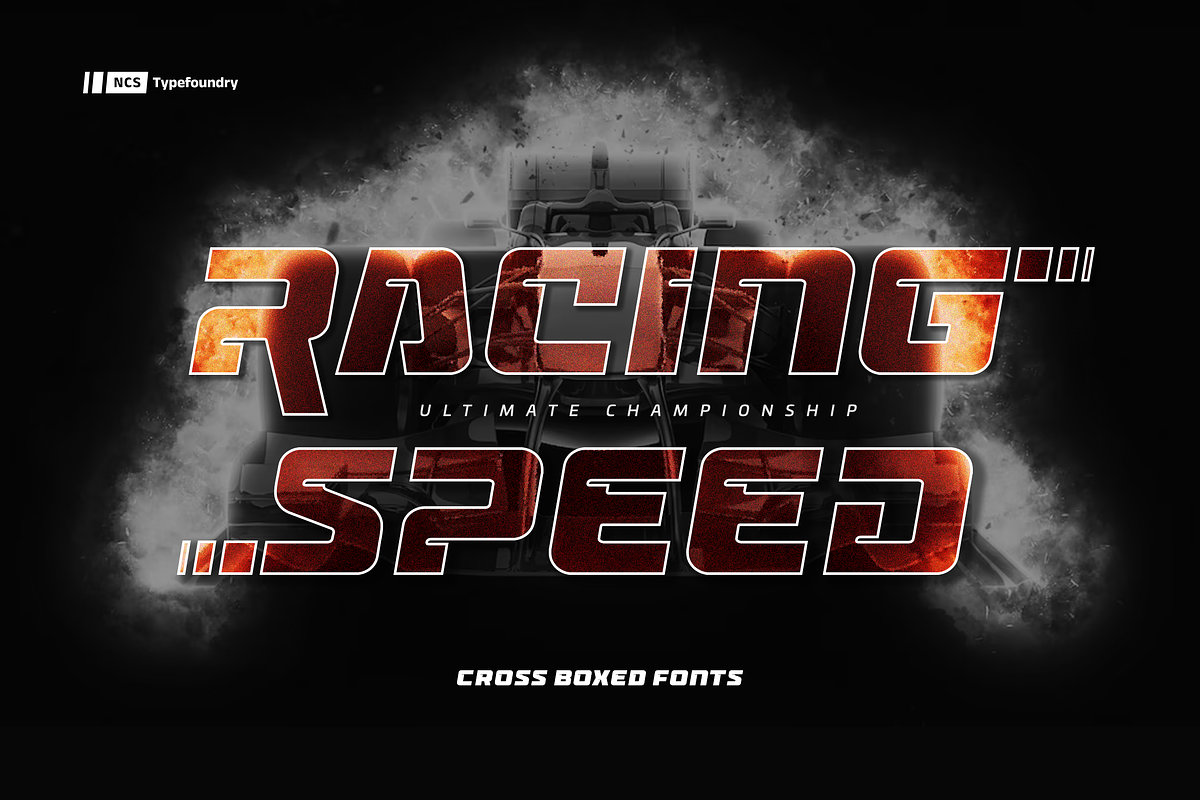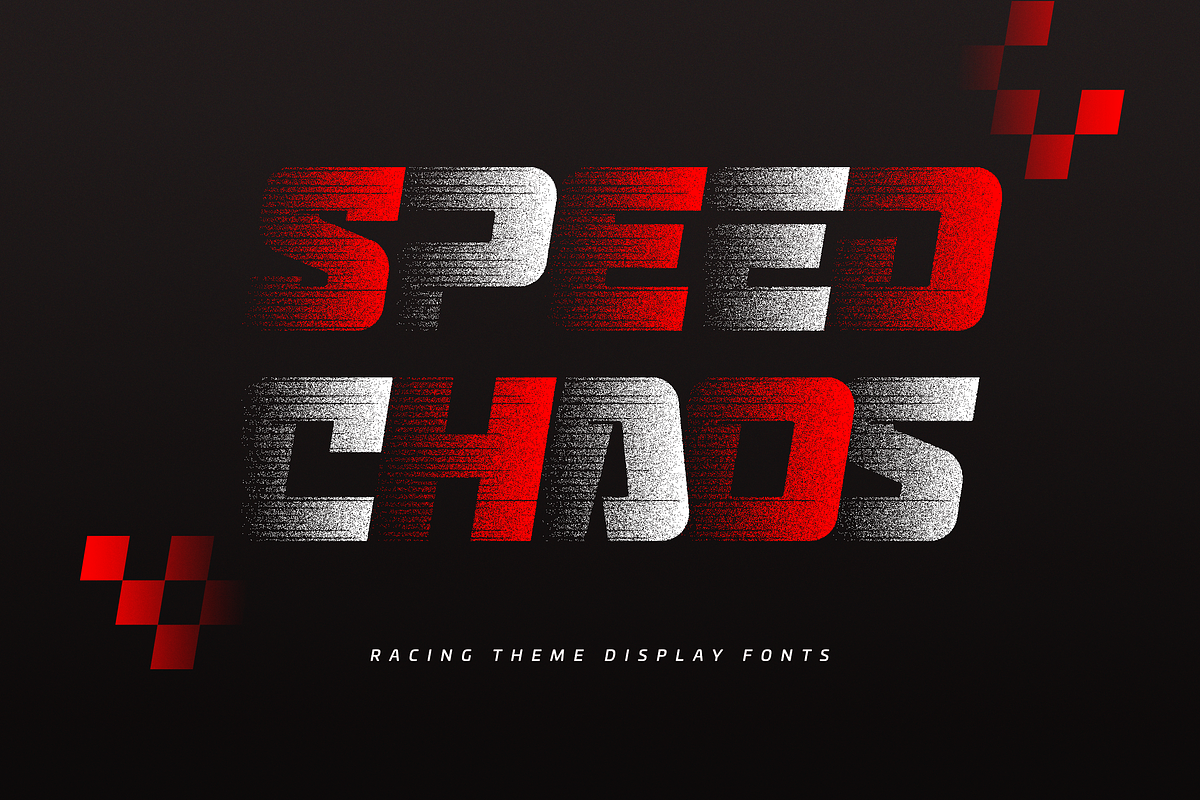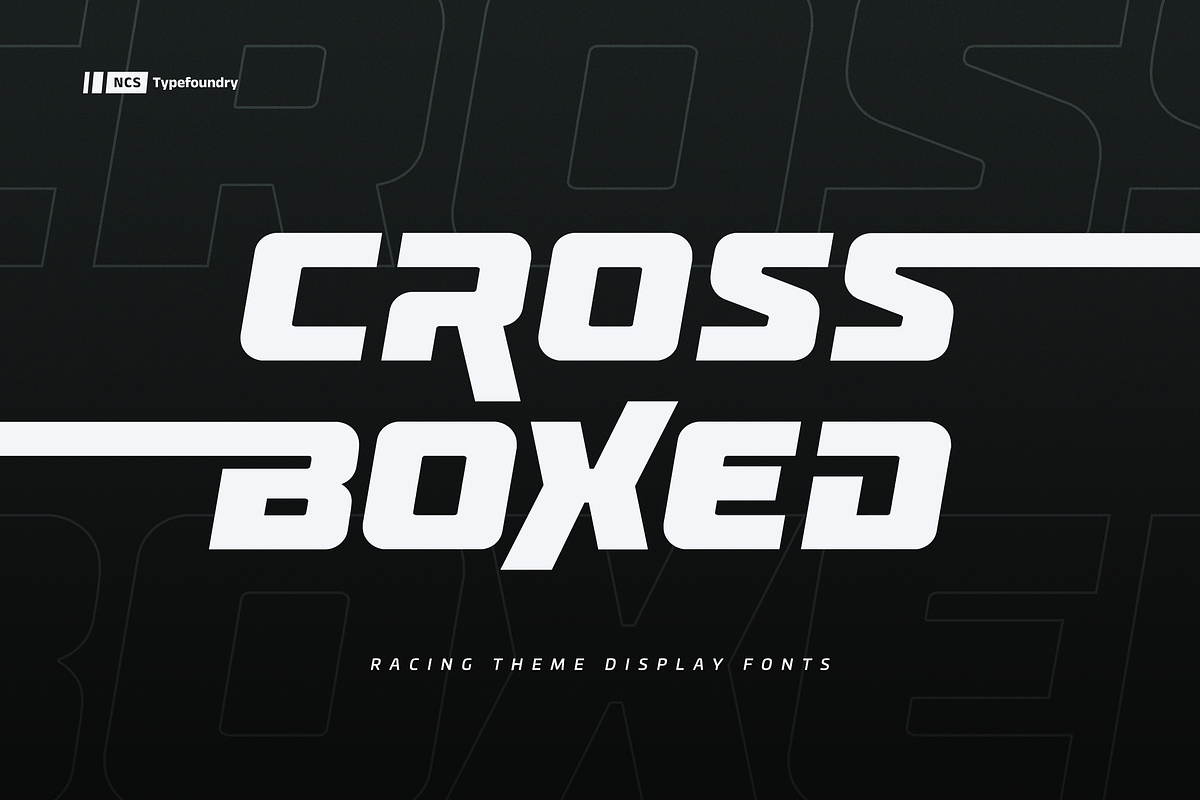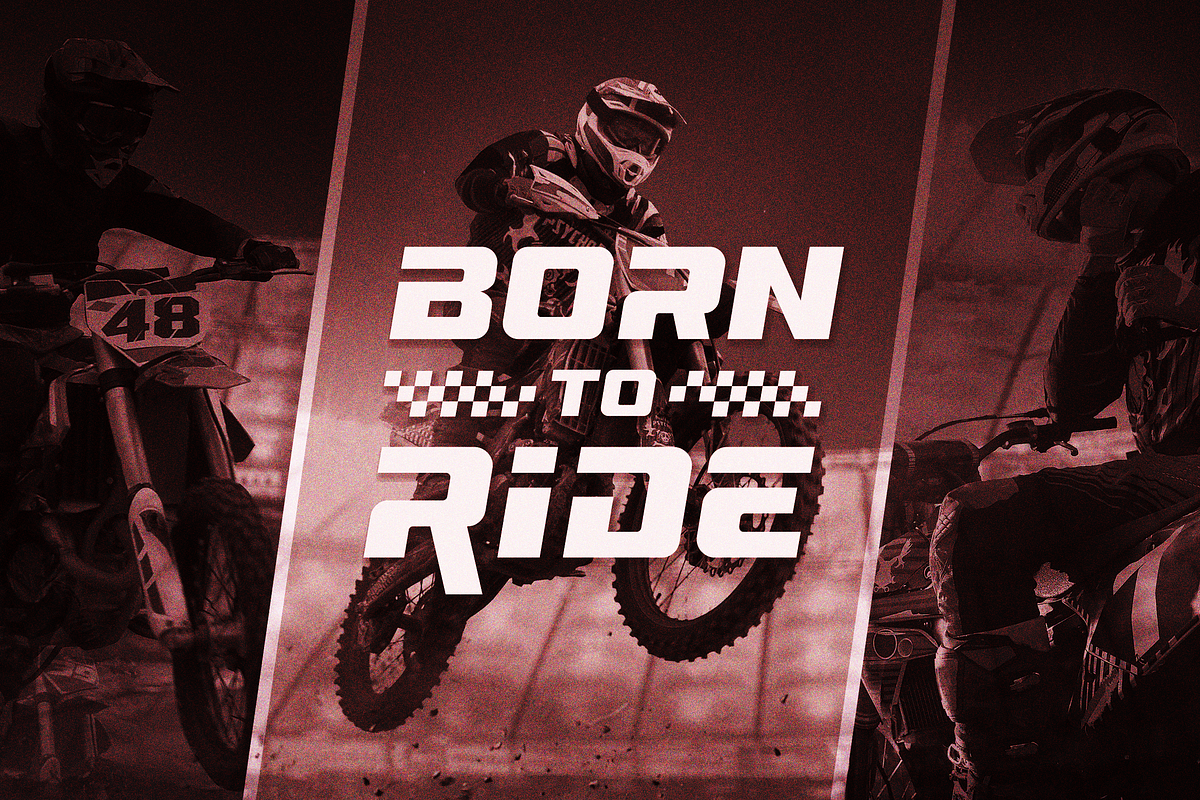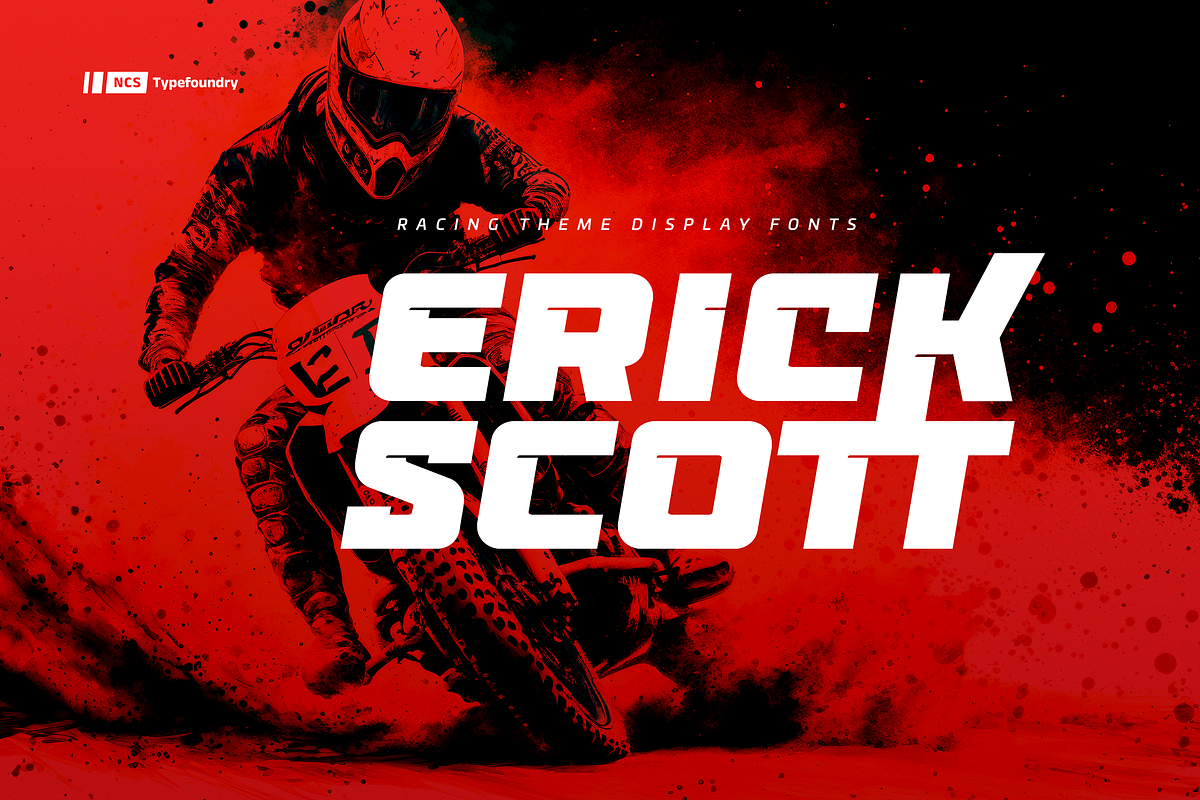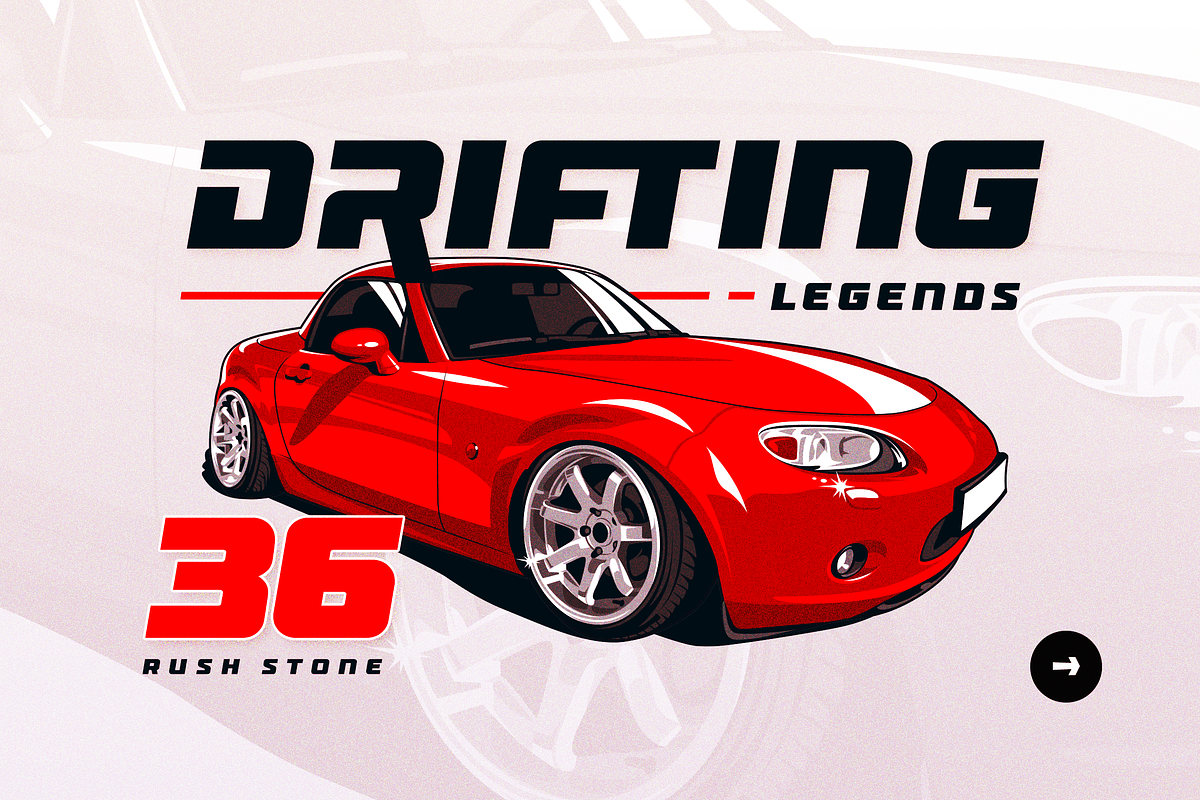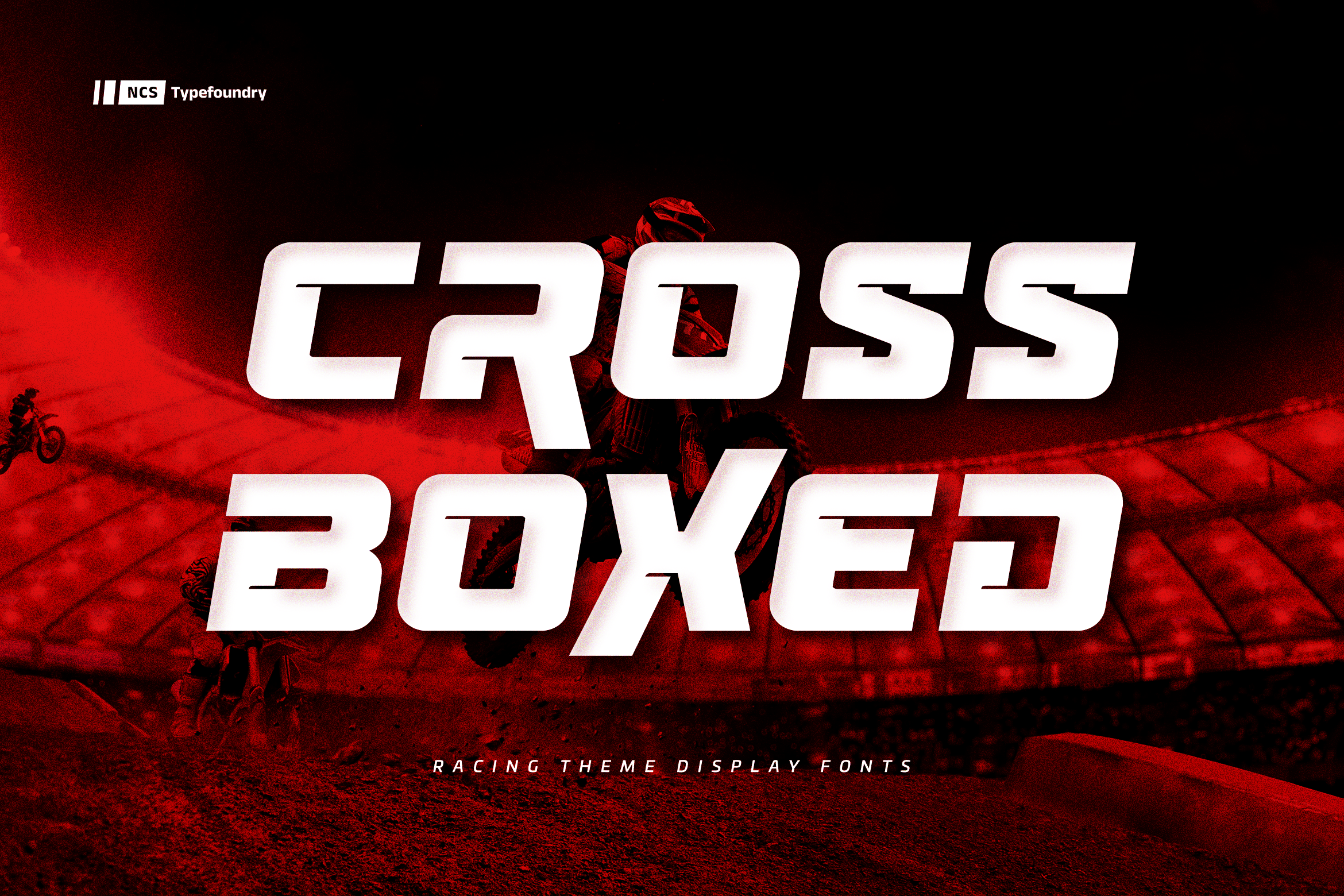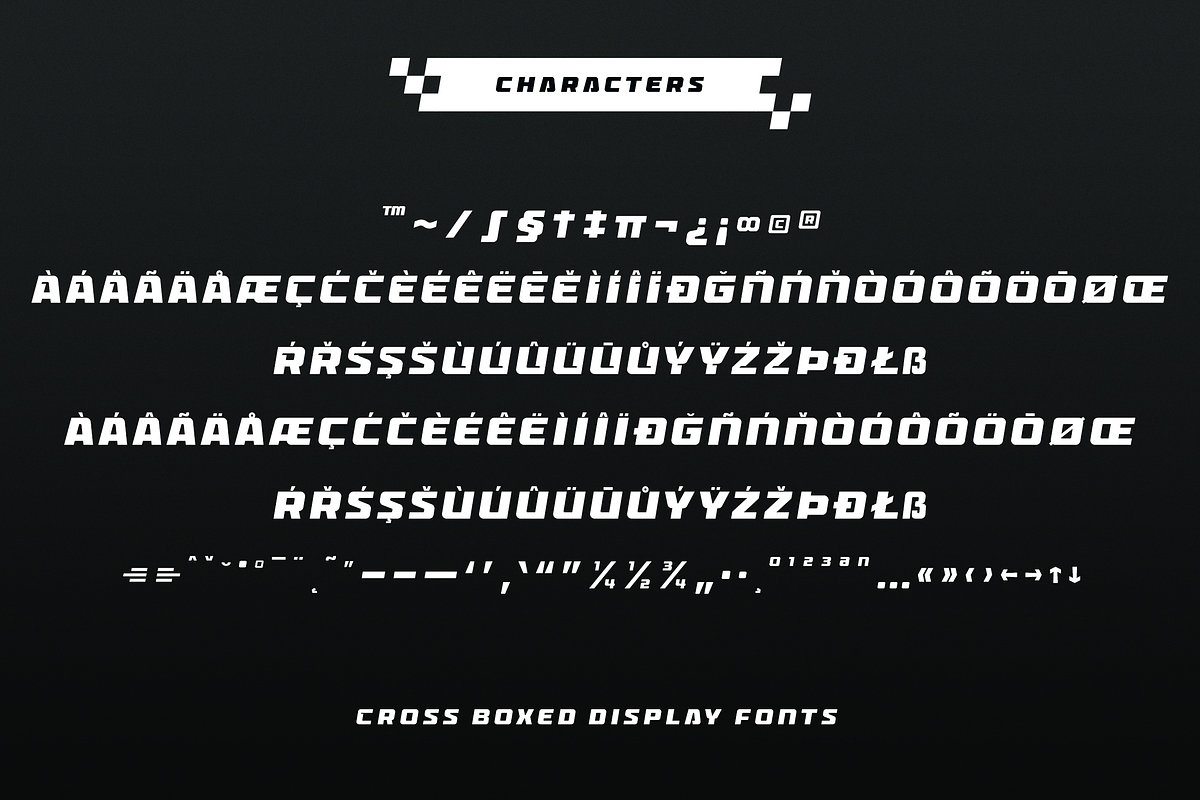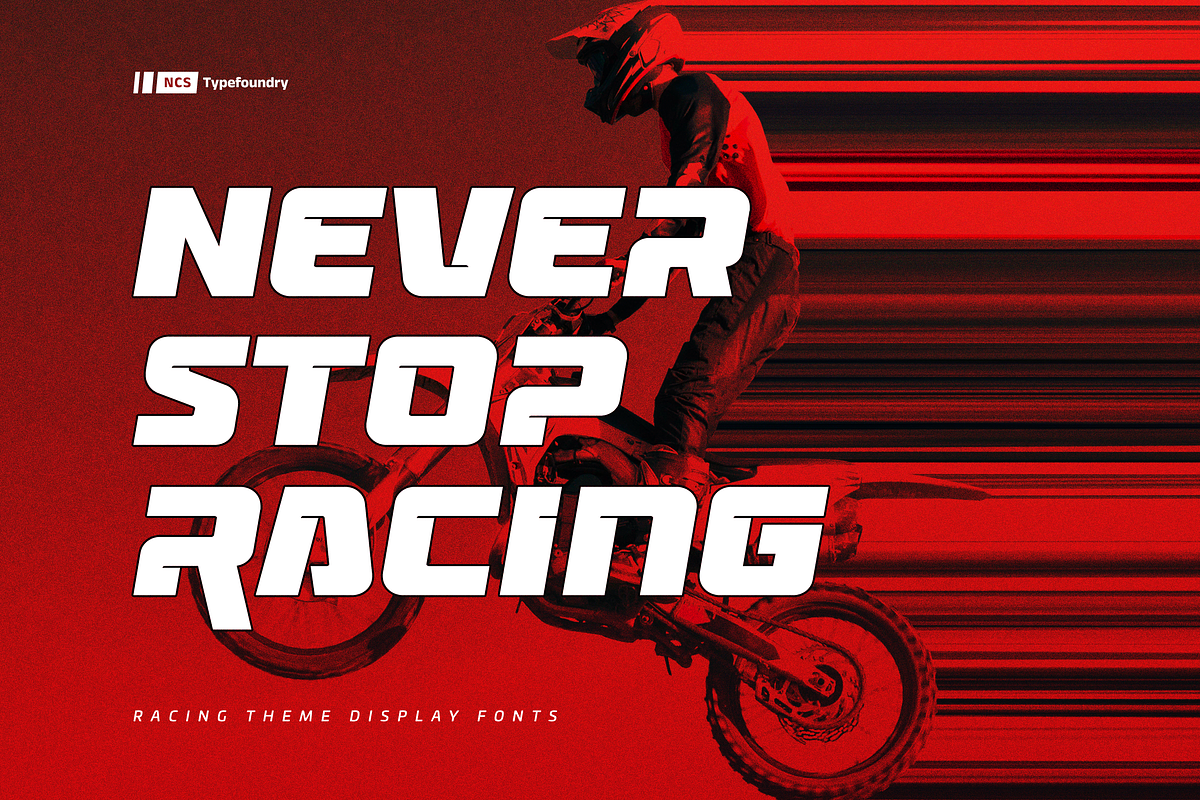
Cross Boxed Bold Modern Sport Fonts
Cross Boxed Bold modern sport font with rounded corners in consistent angles. A strong and unique style instantly adds power and movement to your projects. It’s perfect for logotypes, headlines, game covers, sports events, posters, magazine covers, branding, product design, labels, and other suitable projects.